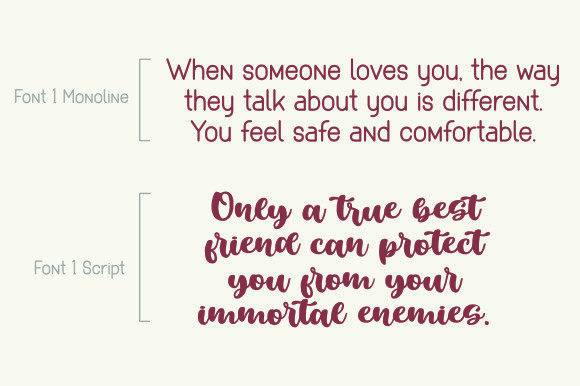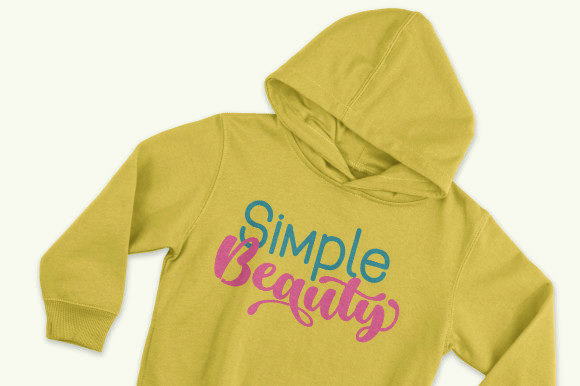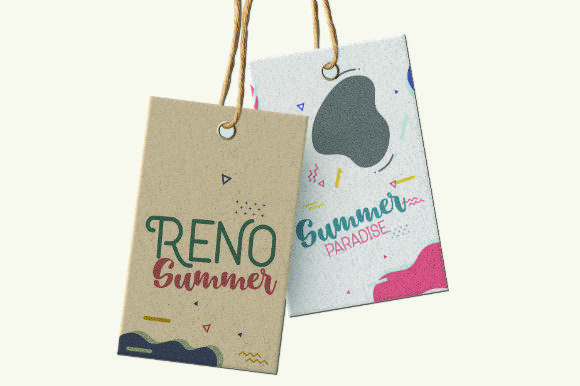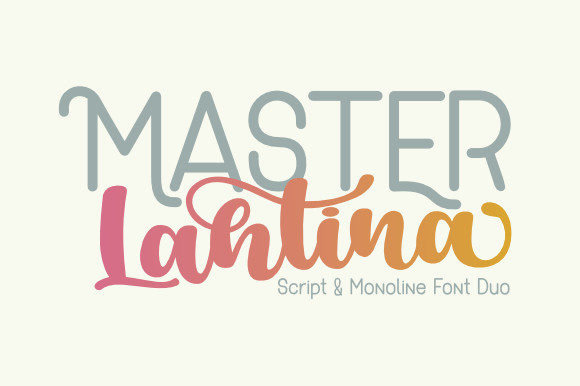
Introduction to Master Lahtina Font
Master Lahtina is the perfect duo font (Display and Handwritten).
Incredibly versatile, this design will fit a wide range of creations and can easily become your go-to This font is PUA encoded which means you can access all of the glyphs and swashes with ease.